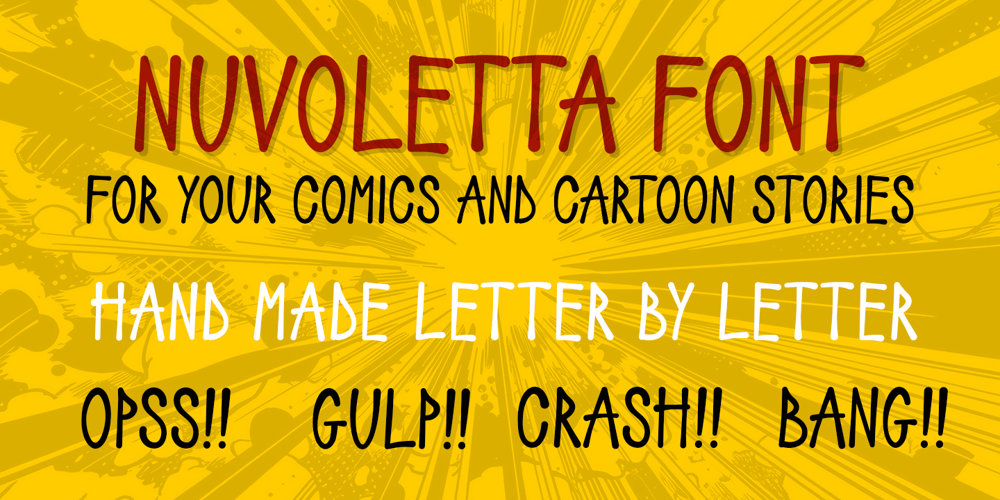
Nuvoletta
Nuvoletta font
Nuvoletta Font Family was designed by Roberto Sofi and published by Biroakakarati. Nuvoletta contains 1 styles and family package options. Nuvoletta is the italian name of “speech balloon”, its mean a little cloud. In comics world “nuvoletta” it use to write the speeches of characters! I designed this font inspired by comics books. It’s really fit also for your awesome fantasy! Nuvoletta is drew letter by letter. Thank you!